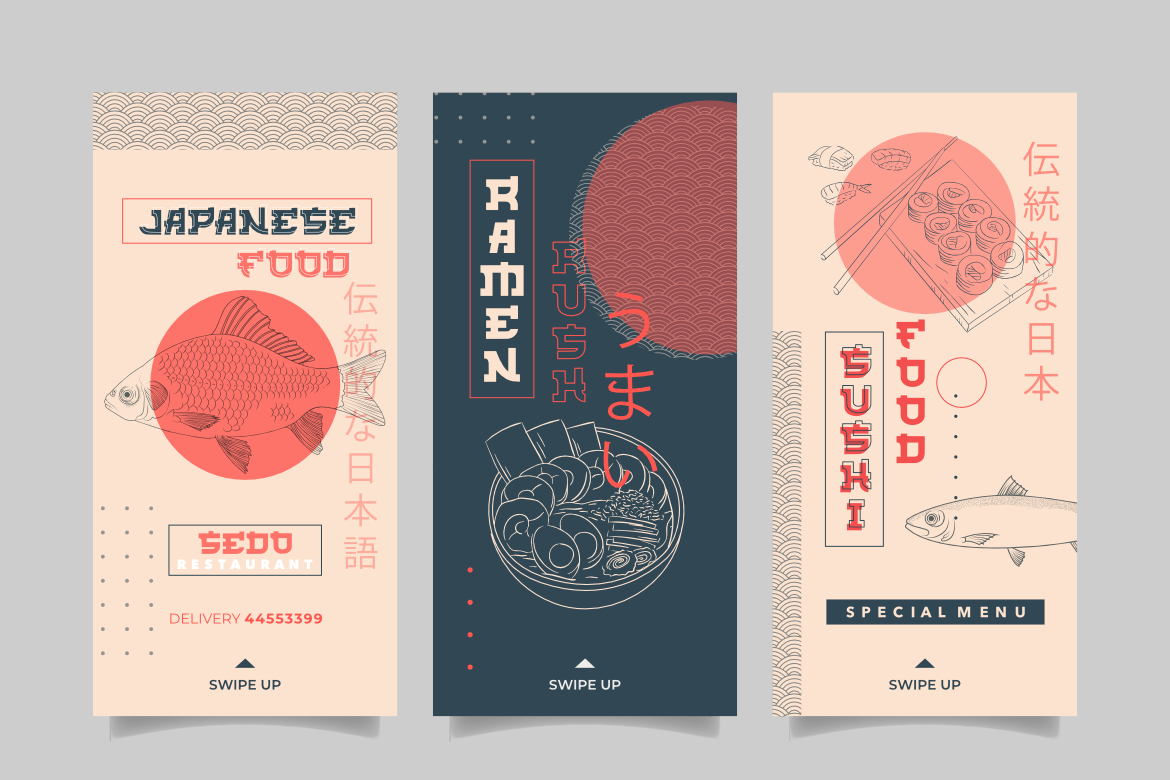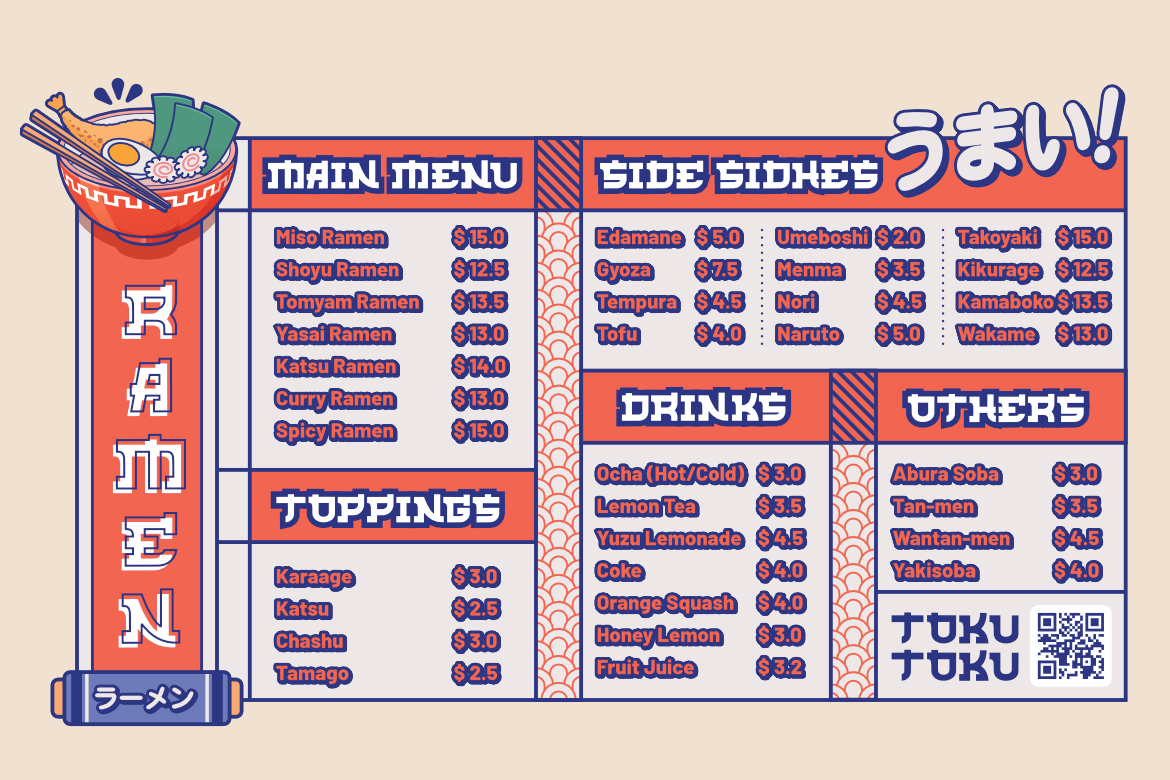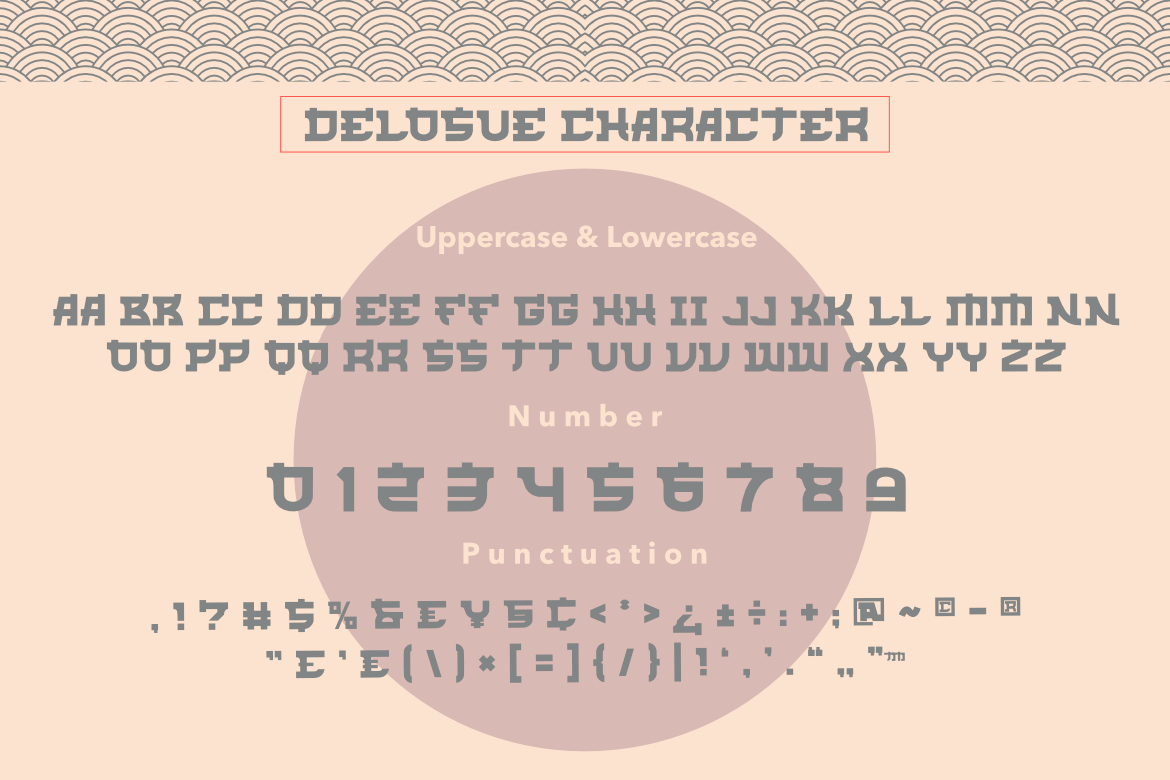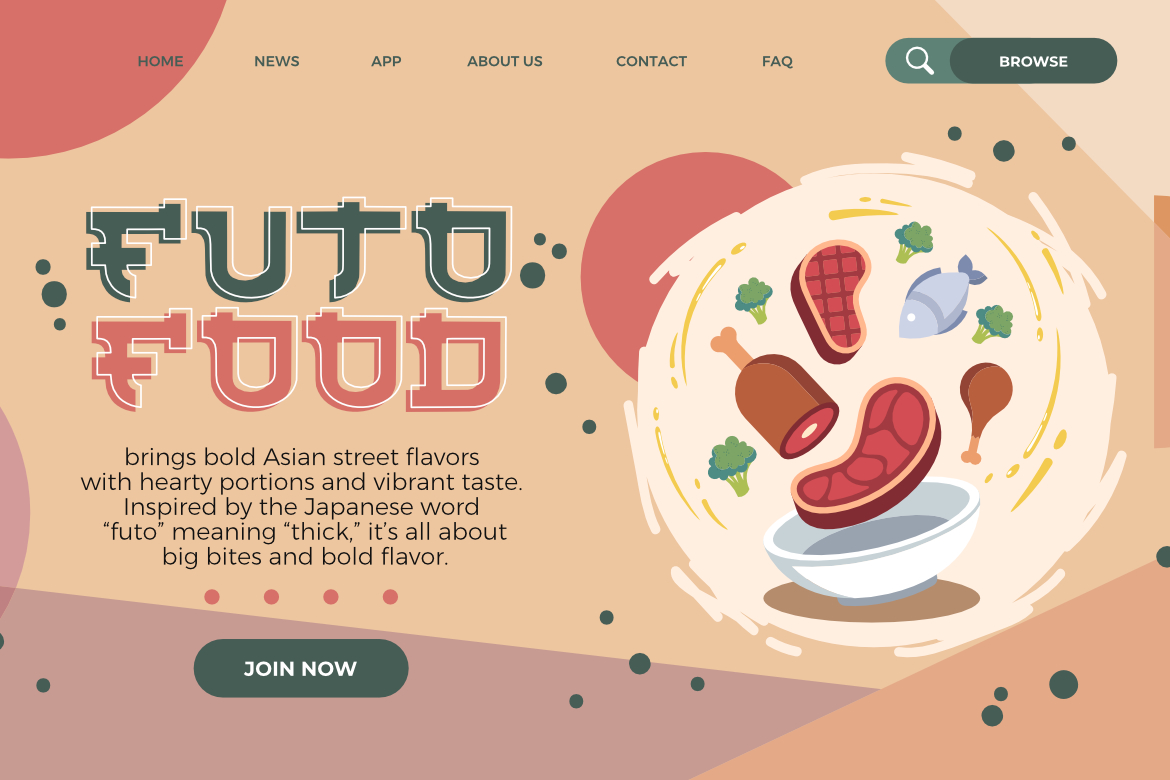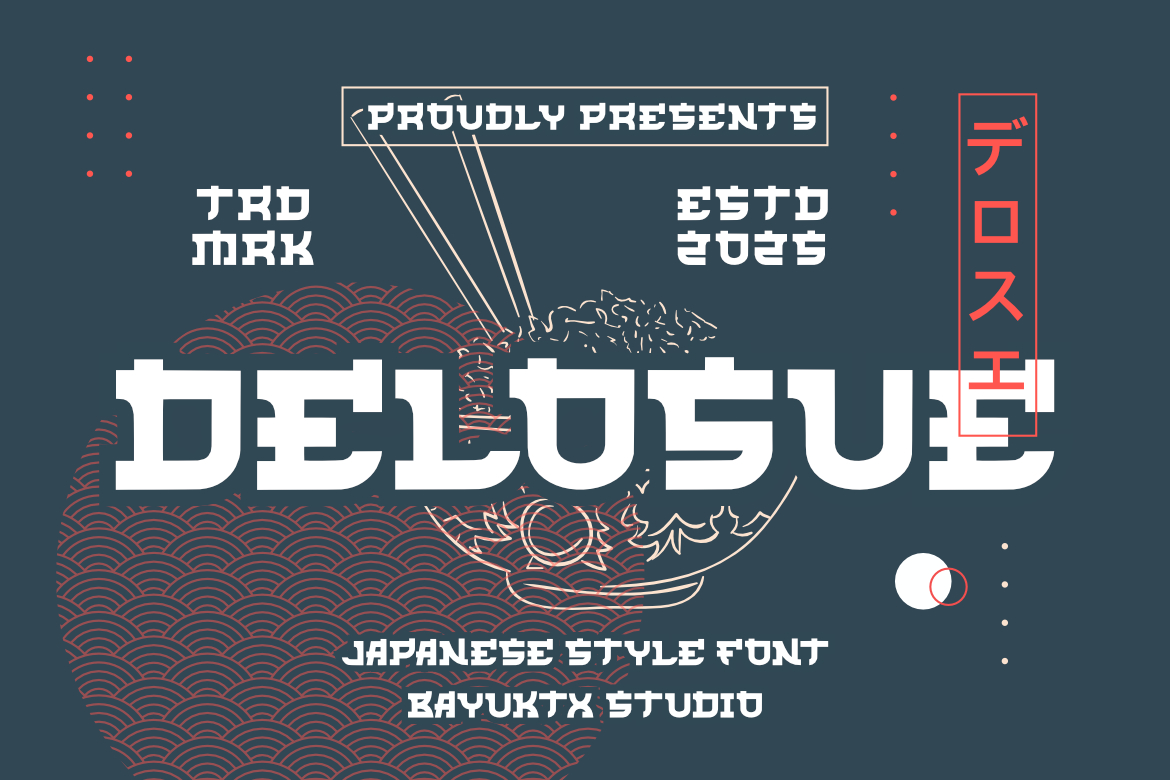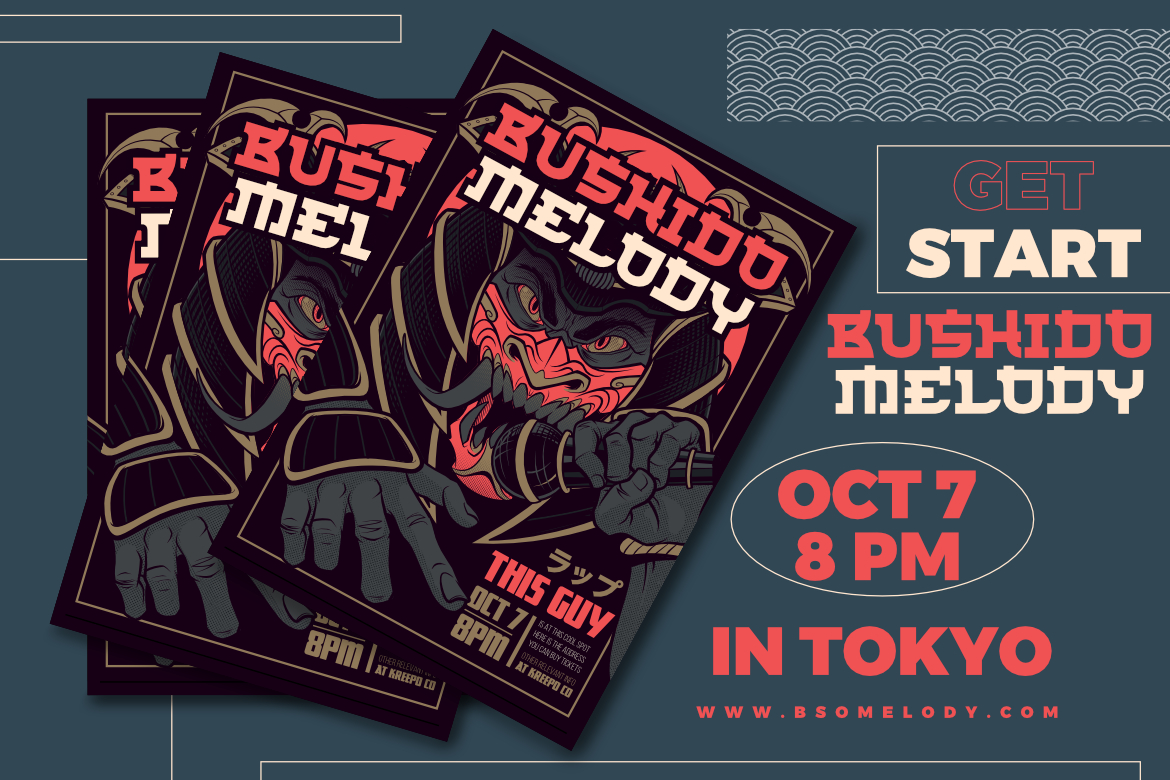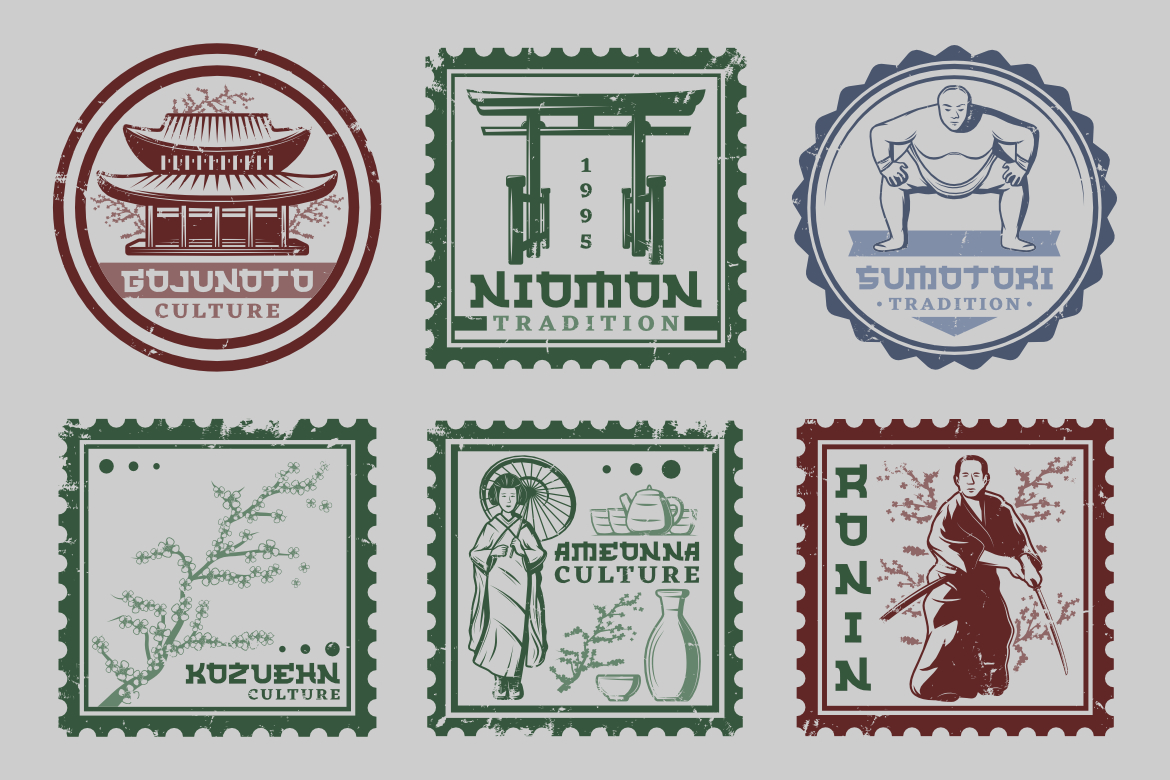
Delosue - Japanese Style Font
**Delosue a Japanese Style Font**
Delosue Japanese Style Font blends bold modern forms with traditional Japanese aesthetics, creating a distinctive fusion of cultural elegance and geometric precision. Each character reflects the structured balance of kanji-inspired design — powerful, clean, and visually striking.
Inspired by ramen shop signage, samurai motifs, and retro Tokyo vibes, Delosue delivers a sense of discipline and creativity in one unified typeface. It captures the soul of Japanese minimalism while maintaining a contemporary edge perfect for digital and print works.
Whether for restaurant branding, pop culture posters, or merchandise graphics, Delosue commands attention with its strong presence and artistic harmony.
**Key Features :**
* Uppercase & Lowercase
* Numerals & Punctuation
**Suitable For :**
* Japanese Food & Restaurant Branding
* Poster & Merchandise Design
* Pop Culture & Anime Projects
* Logo & Packaging Design
* Typography Art & Headlines
Delosue Japanese Style Font brings the spirit of Japan into your design — bold, balanced, and beautifully crafted.